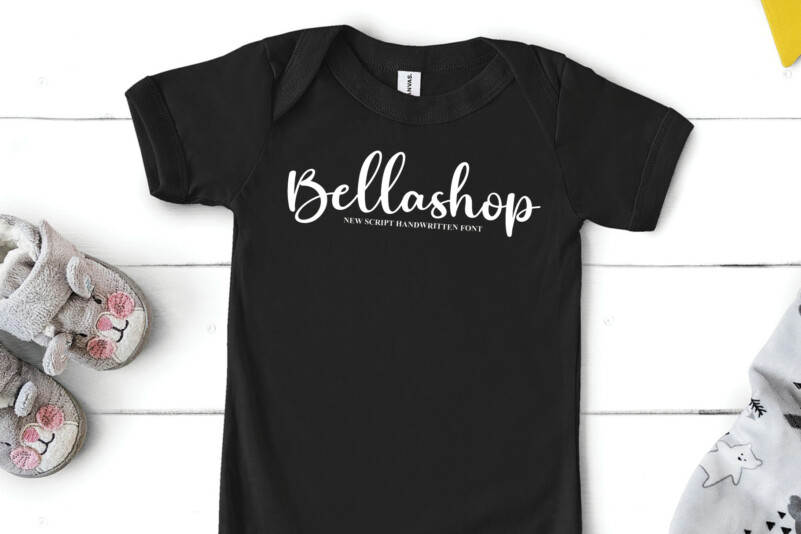
Comming Script Font
Comming Script Font is a gorgeous and bold handwritten font, crafted to give your headlines and logotype projects a stylish touch. This font reads as strong, confident, and dynamic and can add tons of nostalgic character to your designs.